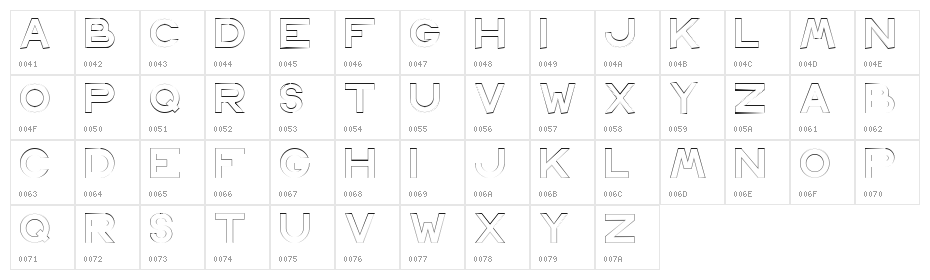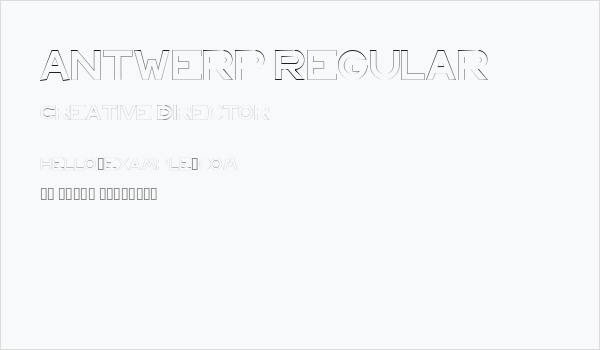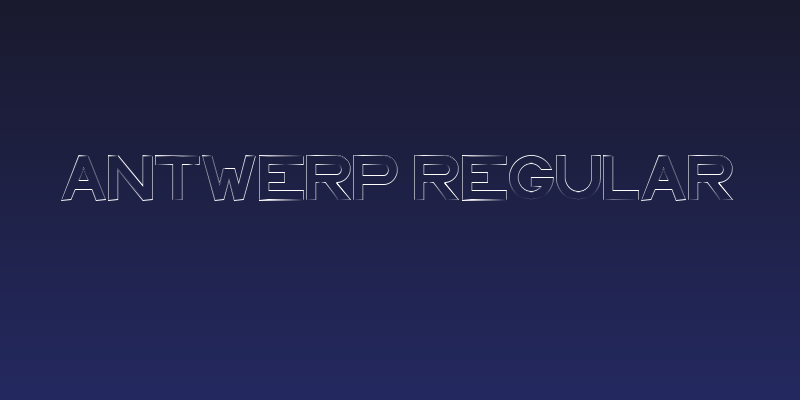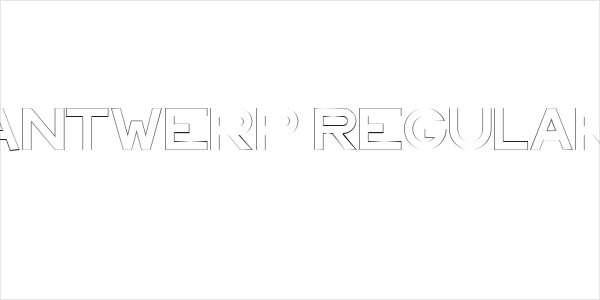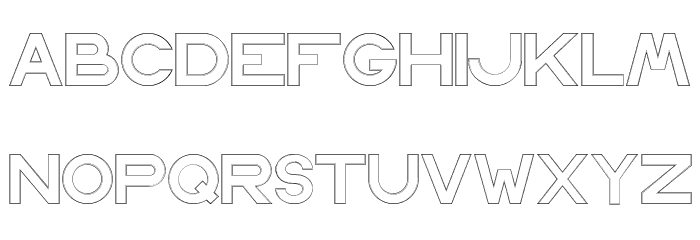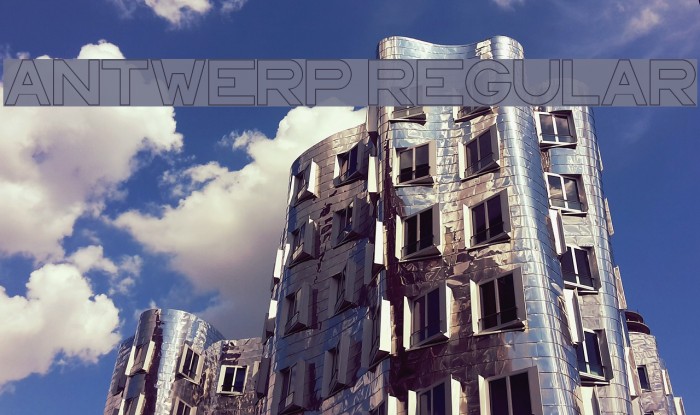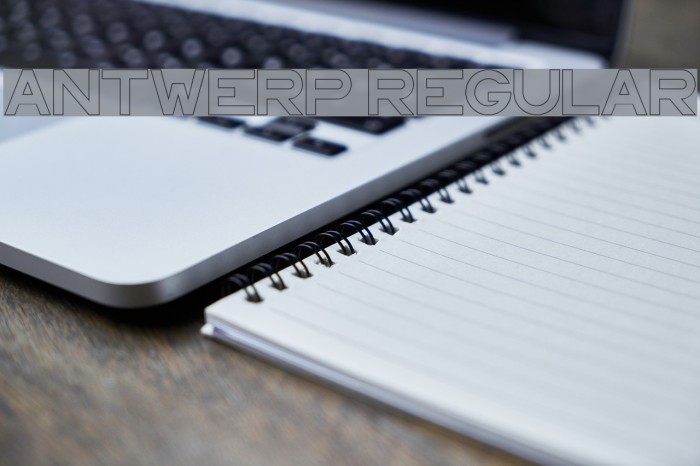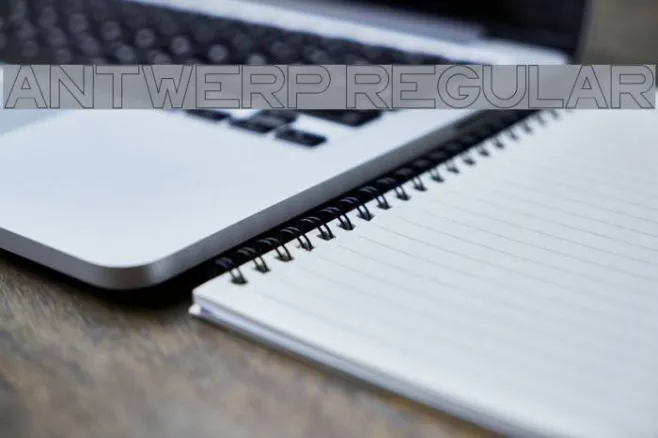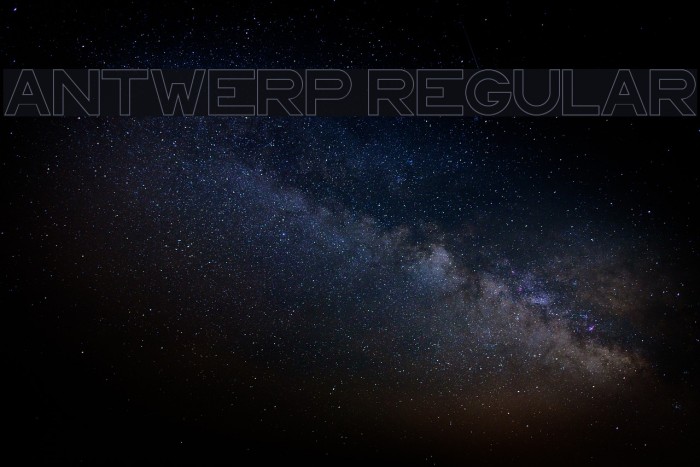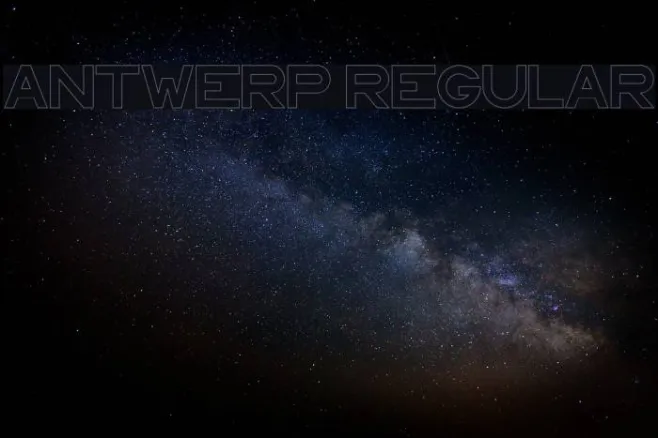
Antwerp Regular Font
Antwerp Regular Description
This font features a modern, geometric design with clean lines and a minimalist aesthetic. The characters are outlined, creating a hollow effect that adds a unique visual interest. Each letter is constructed with precision, emphasizing symmetry and balance. The uppercase letters are bold and commanding, while the lowercase letters maintain the same geometric style, ensuring consistency throughout the typeface. The numbers and special characters follow the same design principles, making this font versatile for various applications. Its structured appearance makes it suitable for contemporary design projects.
| Proposed Projects | Ideal for branding, posters, headlines, and digital media where a modern and clean look is desired. |